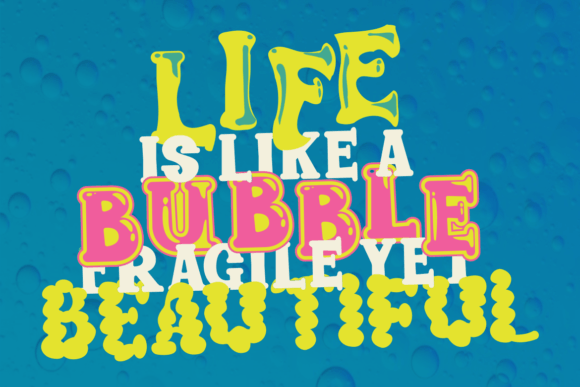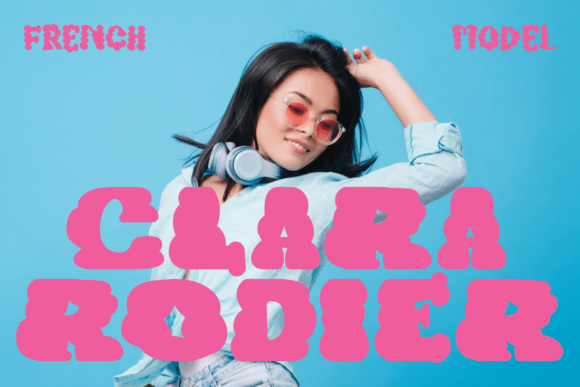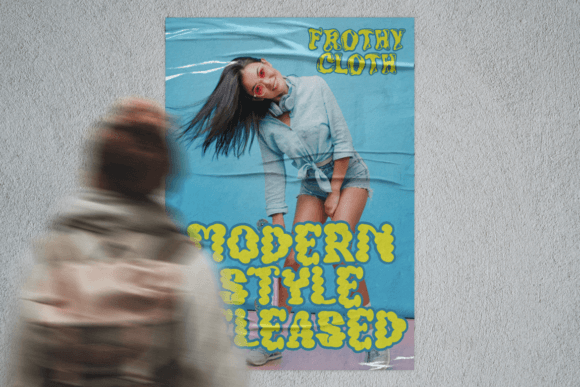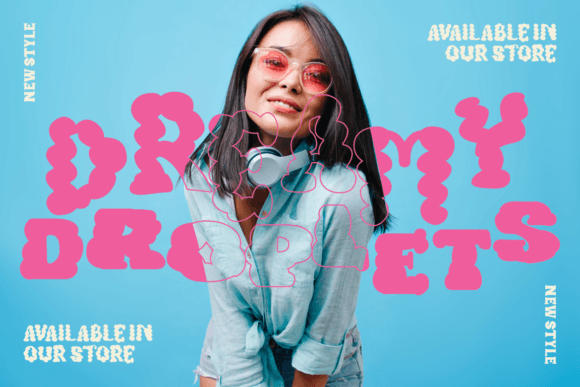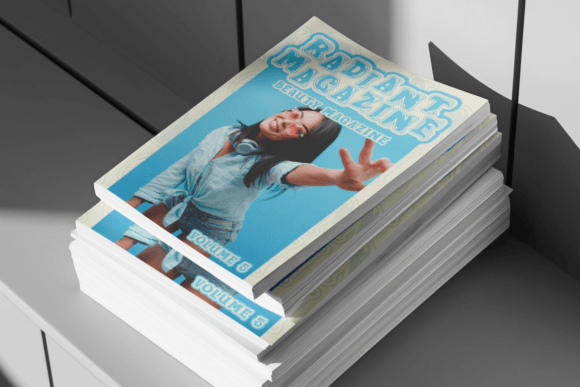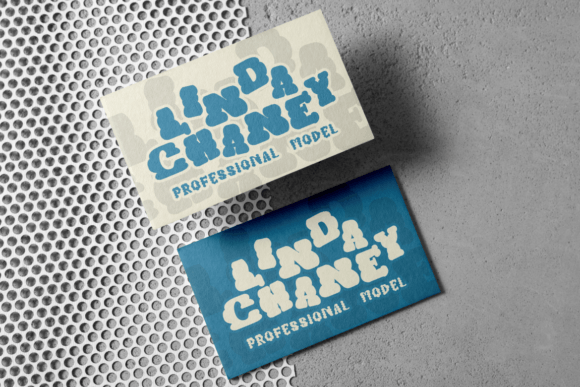
Frosted Flair Font: Adding a Touch of Whimsy to Your Designs
Immerse yourself in the effervescent charm of Frosted Flair β Bubble Display Font, a typeface that captures the essence of liquid motion and playful buoyancy. This font is a celebration of the fluidity and translucence of water, encapsulated in the form of bubbles that seem to pop out of the page.
The Inspiration Behind Frosted Flair
Frosted Flair is more than just a font β it’s an experience. Each character is crafted to embody the lightness and grace of a bubble, making it an ideal choice for designs that require a touch of whimsy and imagination. The font’s unique design is inspired by the natural world, bringing a sense of freshness and playfulness to any project.
Whether youβre creating a logo that needs to stand out, branding that wants to make a splash, or crafting an invitation that bubbles with excitement, Frosted Flair will carry your message on a wave of creativity. With Frosted Flair, your text becomes an ocean of possibilities, where words float and flow with a playful ease.
This display font is perfect for a variety of design applications, including:
- Packaging that needs to catch the eye
- Posters that aim to captivate
- Titles that deserve to be noticed
- Business materials that want to convey innovation and creativity
What Makes Frosted Flair Unique?
Frosted Flair’s unique design and characteristics make it stand out from other fonts. Some of its key features include:
- A playful and whimsical feel
- A sense of movement and fluidity
- Translucent and bubble-like characters
- Perfect for designs that require a touch of imagination
Tips for Using Frosted Flair
To get the most out of Frosted Flair, here are some tips for using the font:
- Use it as a statement piece: Frosted Flair is a bold and eye-catching font, making it perfect for use as a statement piece in your design.
- Pair it with complementary fonts: Frosted Flair pairs well with clean and simple fonts, which can help to balance out its playful feel.
- Experiment with colors: Frosted Flair’s translucent characters make it perfect for use with bright and bold colors.
Frosted Flair β Bubble Display Font is a unique and creative typeface that can add a touch of whimsy and imagination to any design project. With its playful and fluid design, it’s perfect for a variety of applications, from packaging and posters to business materials and invitations. So why settle for a boring and ordinary font when you can make a splash with Frosted Flair?
Get Ready to Make a Splash with Frosted Flair